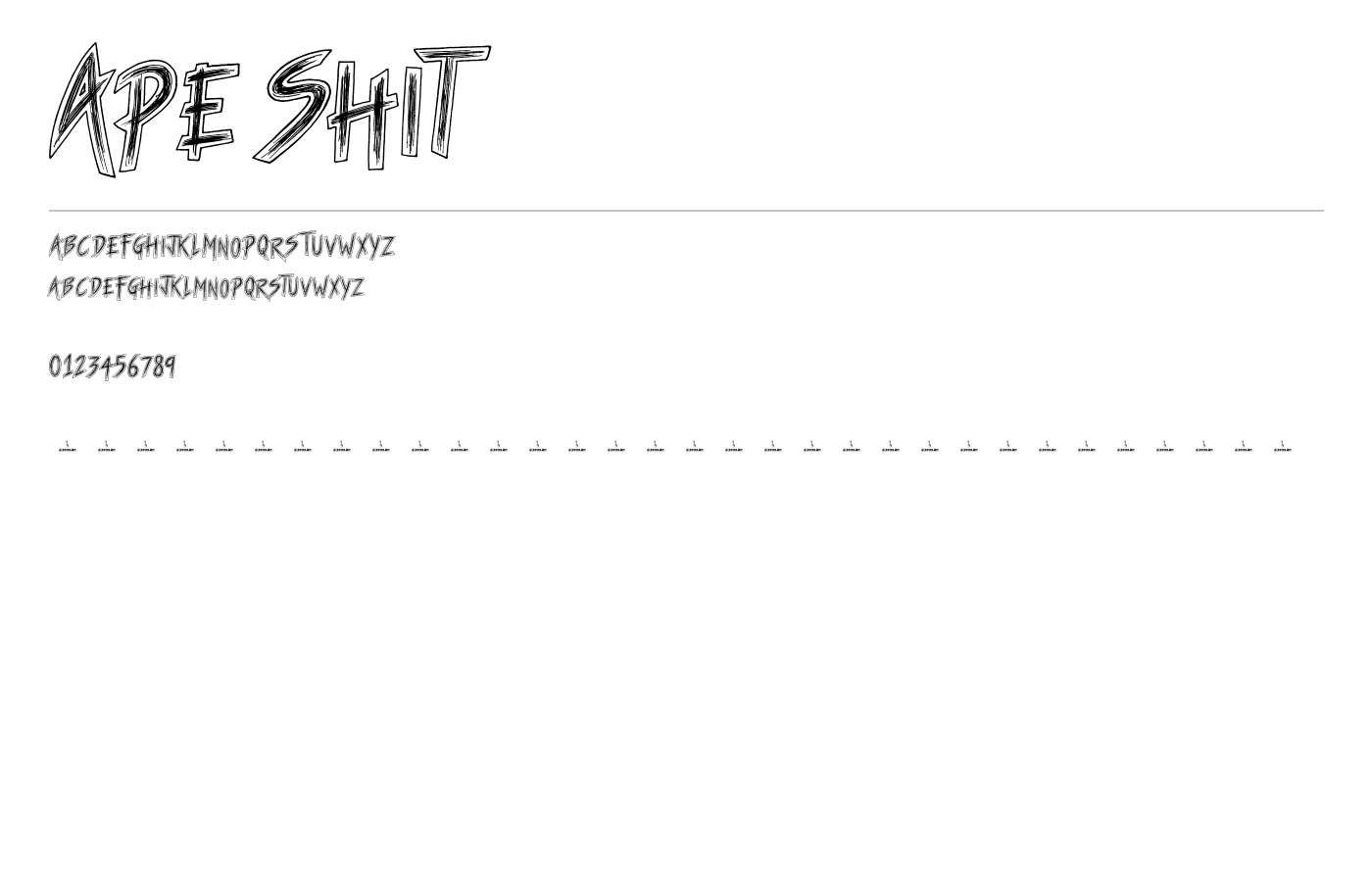
Ape Shit Font is a bold, energetic display typeface with a hand-drawn, graffiti-inspired style that feels wild and playful. Its sharp, sketchy strokes and irregular letterforms give it a raw, dynamic personality, making it perfect for eye-catching headlines, posters, or creative branding that seeks a rebellious, streetwise vibe. This font works best where a bold, unconventional statement is needed to capture attention and convey youthful, edgy energy.
Ape Shit Font
About Ape Shit Font